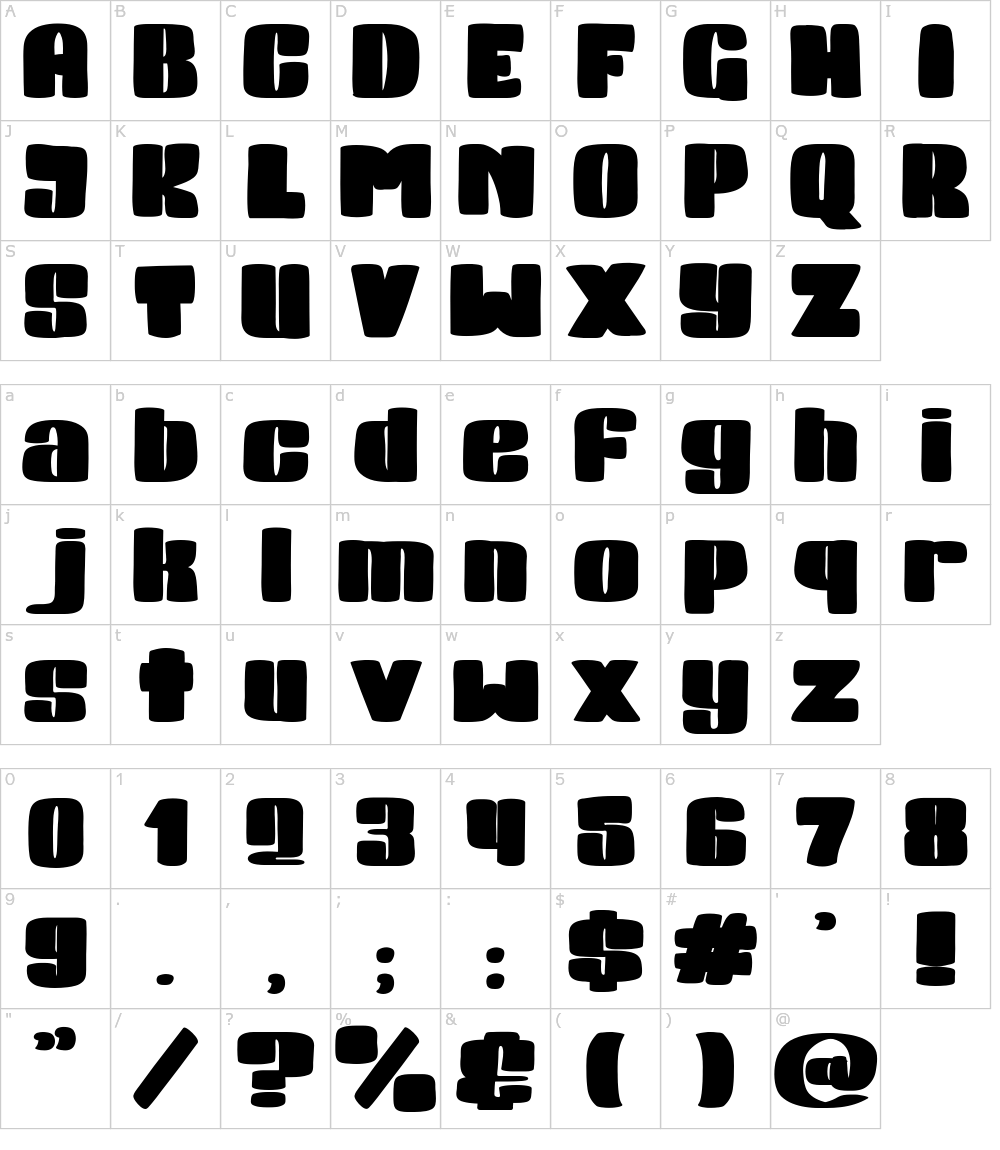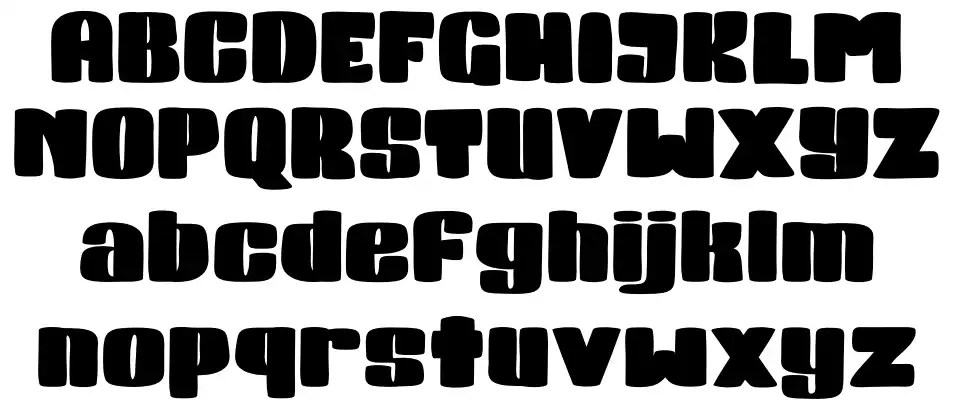
Cool Cute Block Fonts 2022
Cool Cute Block Fonts 2022. We designed it to be a functional heavy extended option for big and bold headlines or small supplemental type. This regular font has a wide rounded look and can create a retro printed look for your.
Cute Block Is A Chunky Lettered And Authentic Display Font.
We Designed It To Be A Functional Heavy Extended Option For Big And Bold Headlines Or Small Supplemental Type.